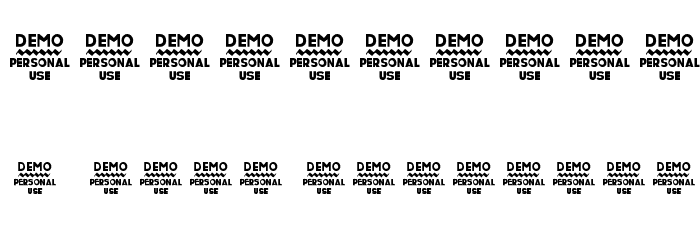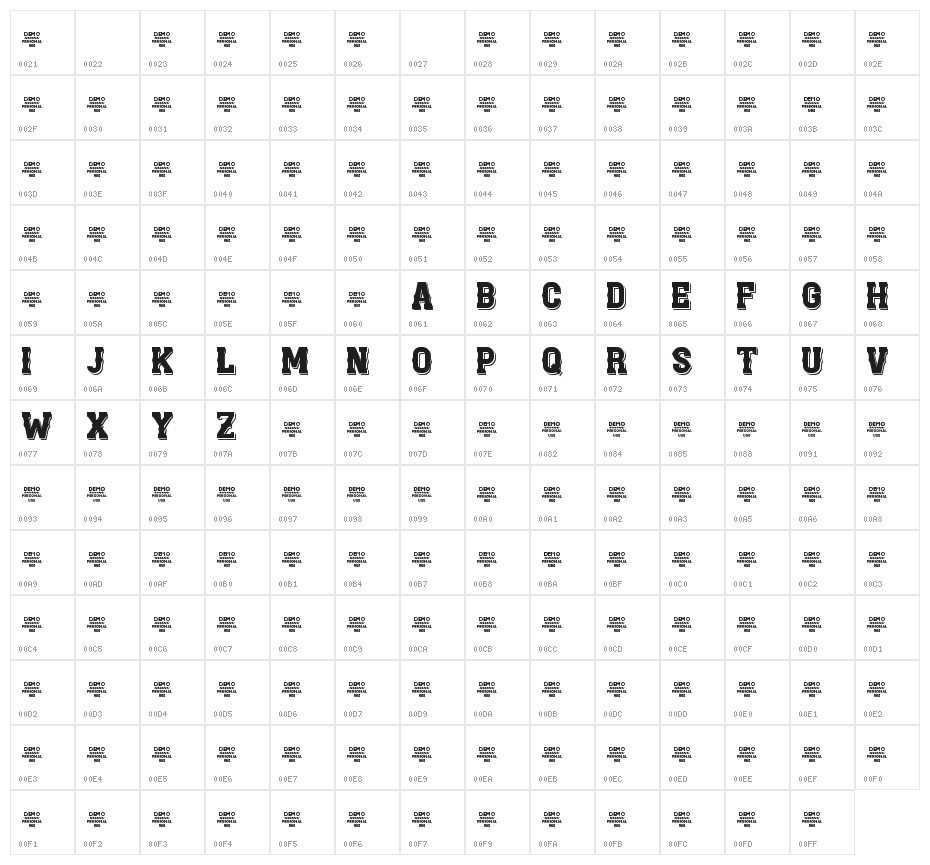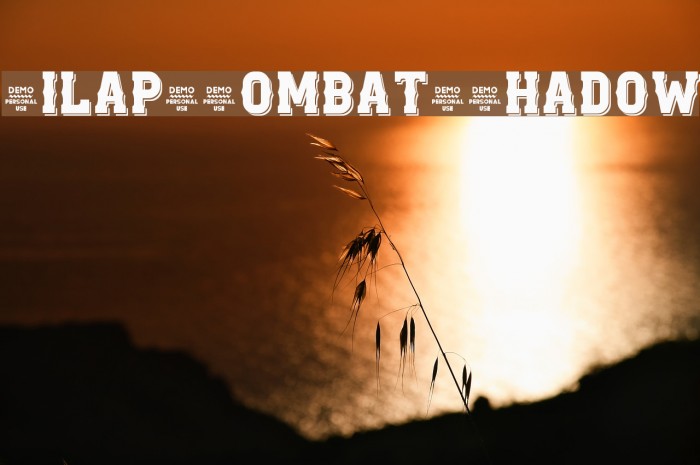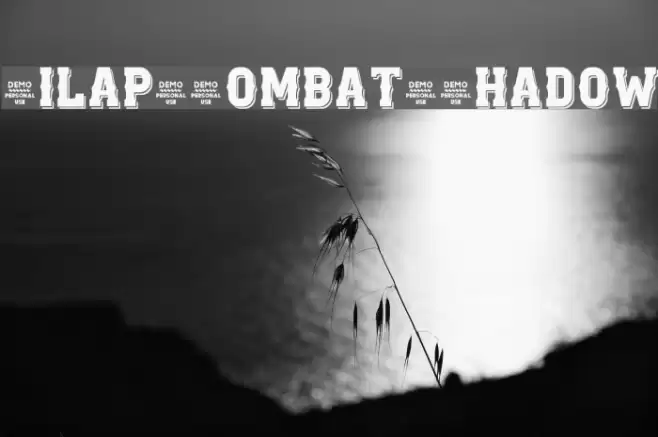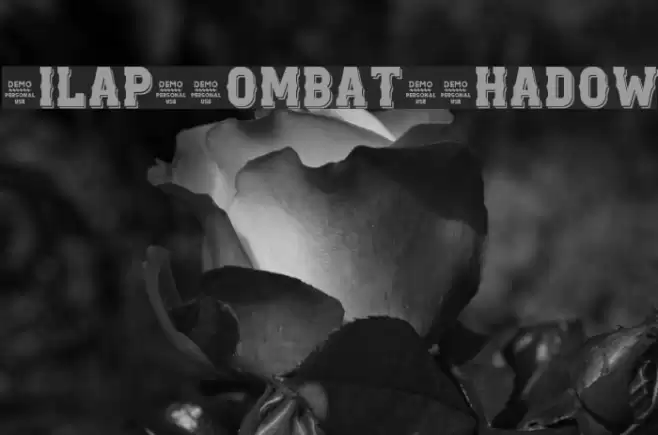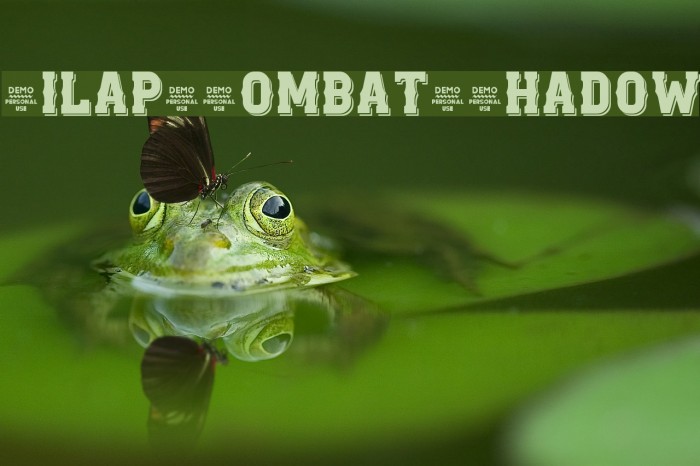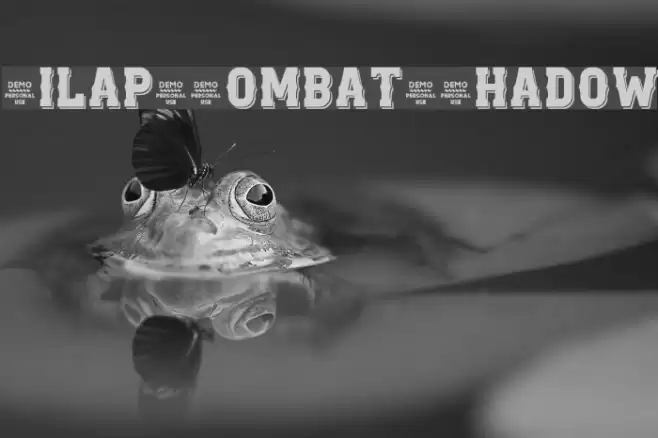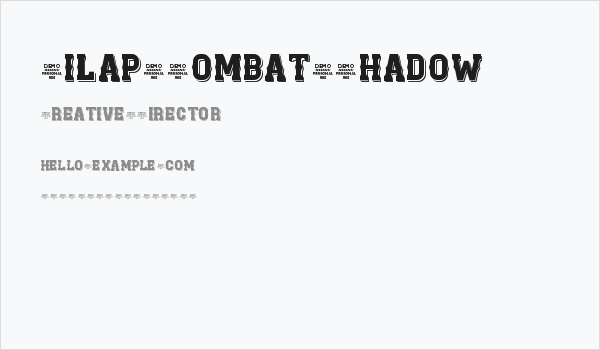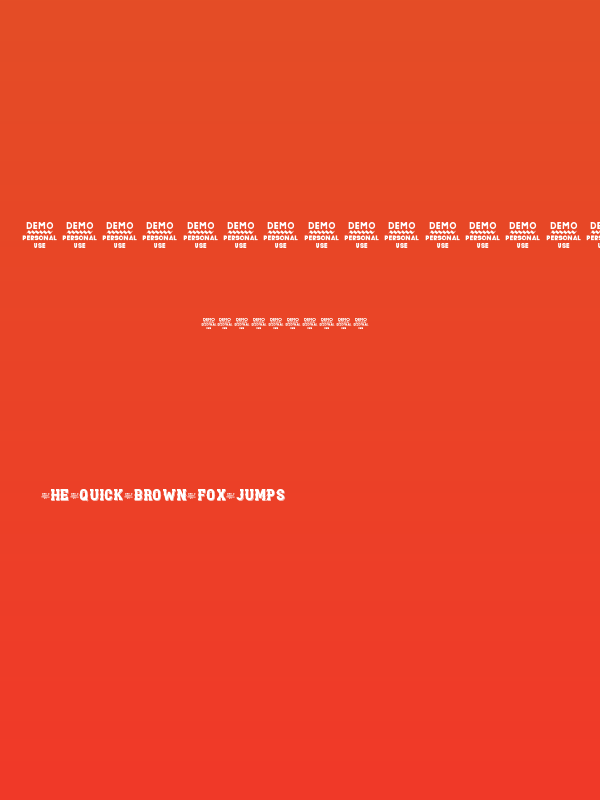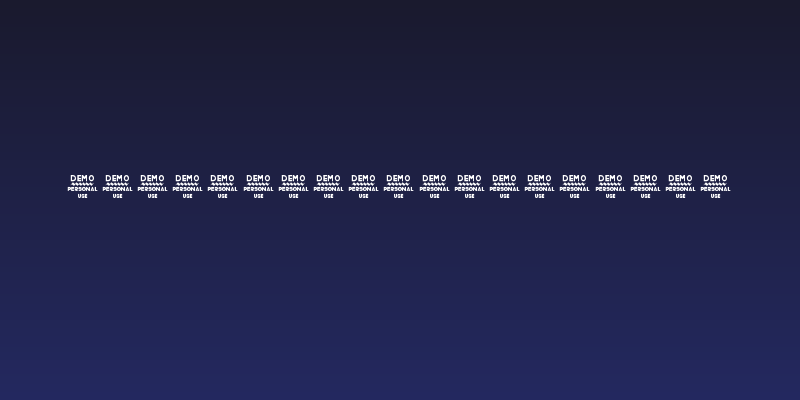
Zilap Combat Shadow Font
Zilap Combat Shadow Description
This font features a bold and impactful design with a strong shadow effect that adds depth and dimension to each character. The uppercase letters are prominently styled with thick strokes and a distinct shadow that gives a three-dimensional appearance. The font's design is reminiscent of vintage poster typography, making it ideal for projects that require a bold and eye-catching display. The characters are well-spaced, ensuring readability while maintaining a dramatic visual impact. This font is perfect for creating striking headlines, posters, and branding materials that need to stand out.
| Proposed Projects | Ideal for posters, headlines, branding, and any design needing a bold, vintage look. |